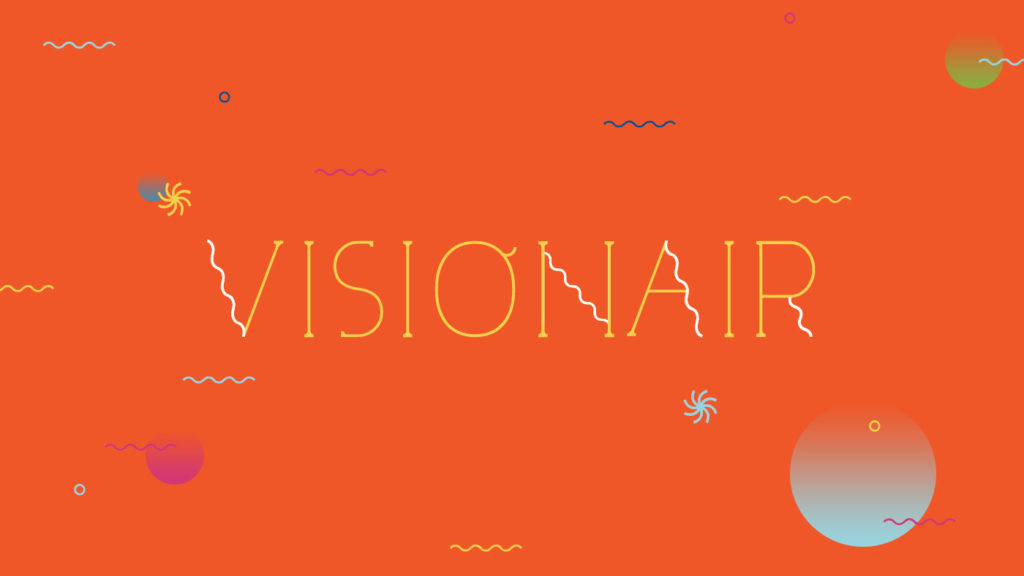
VISIONAIR – Free Font Family
Visionair by Pedro Nekoi is a fun and cool font family inspired by current Japanese simple and fun typography. Mixing serif and wave shapes, Visionair is perfect for projects that can have a lot of fun and joyfulness. It has the minimal side of a light font and a touch of pop and fun.